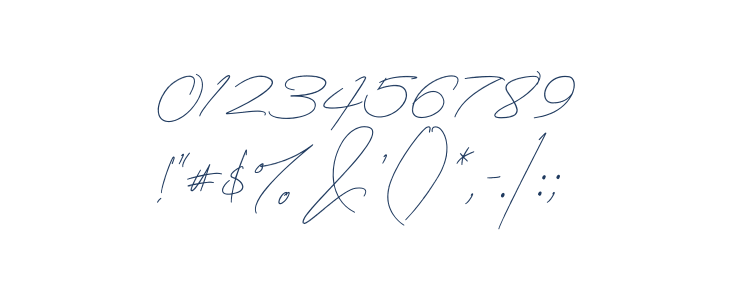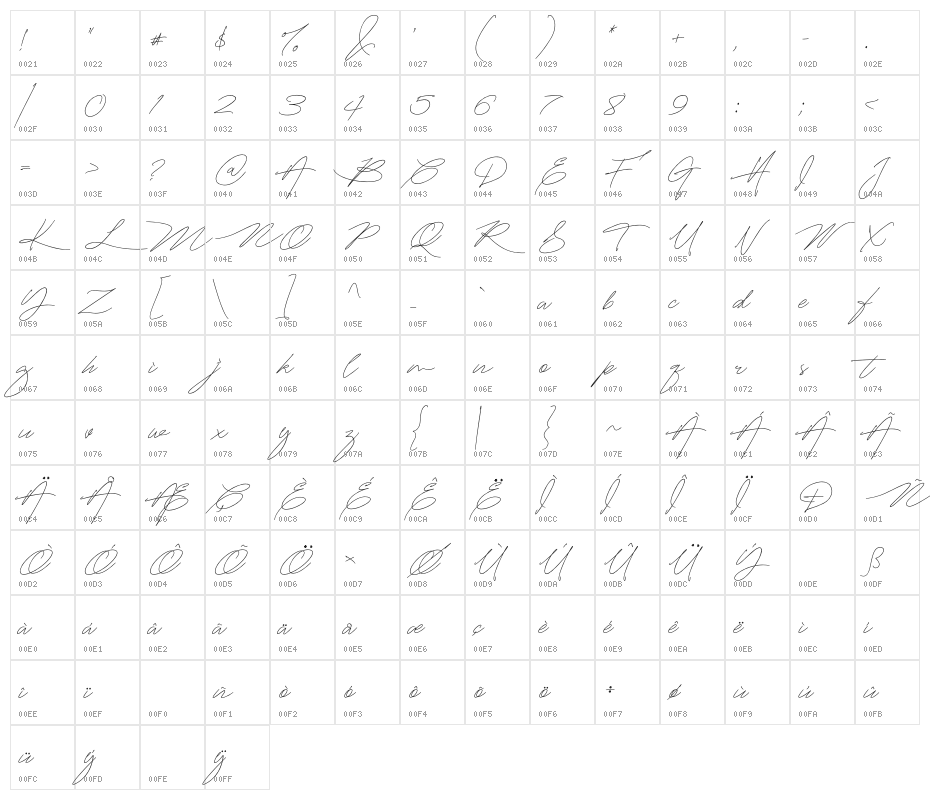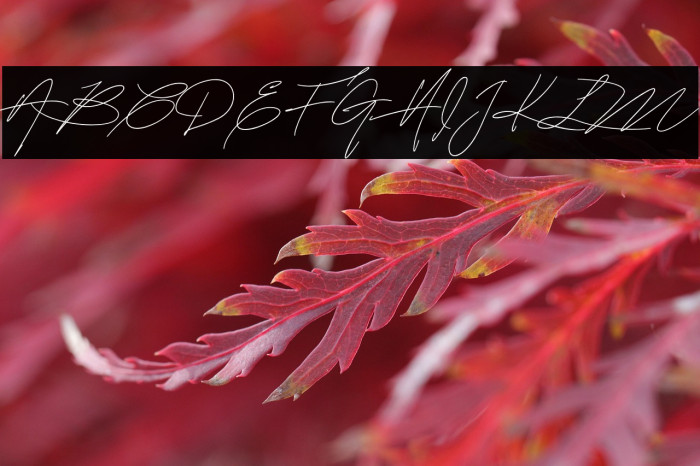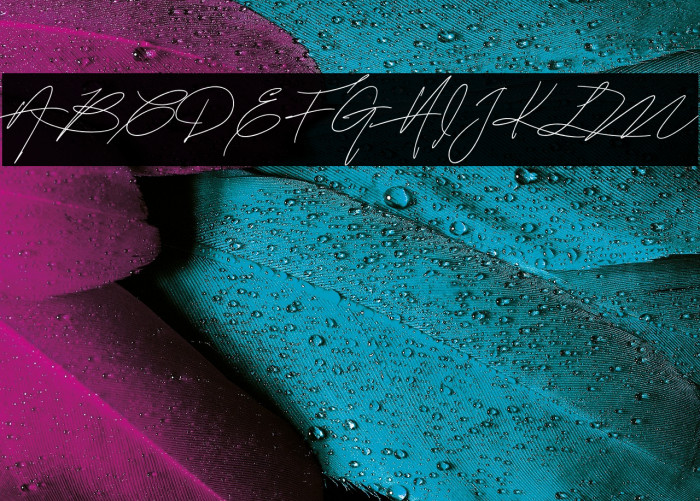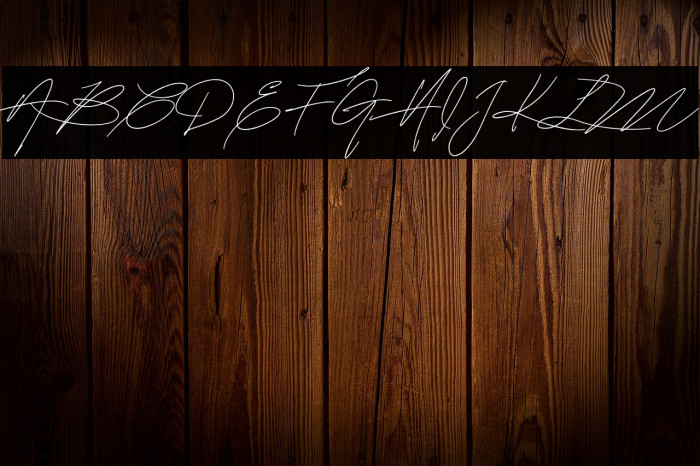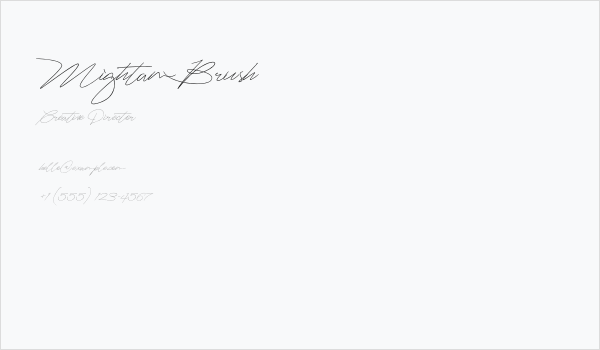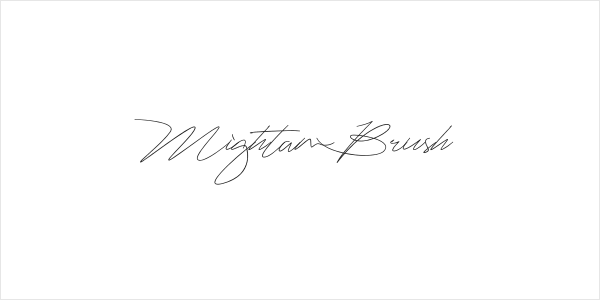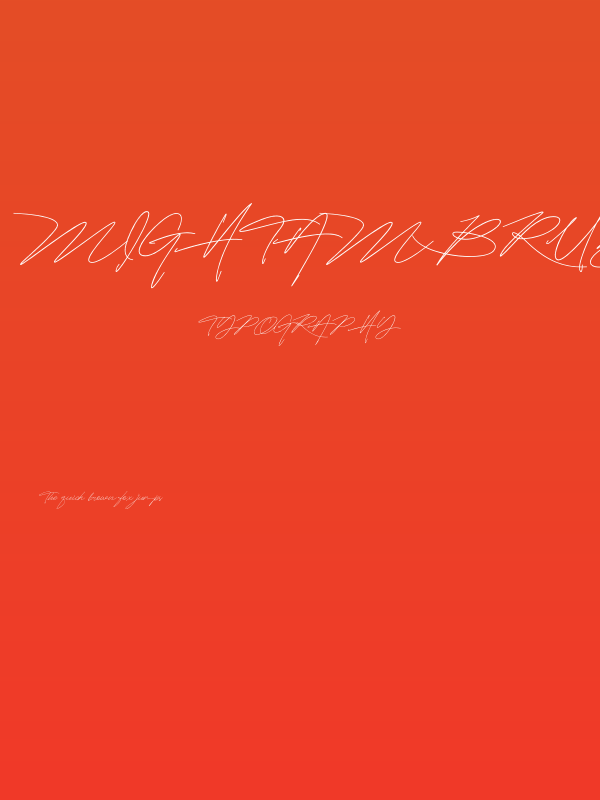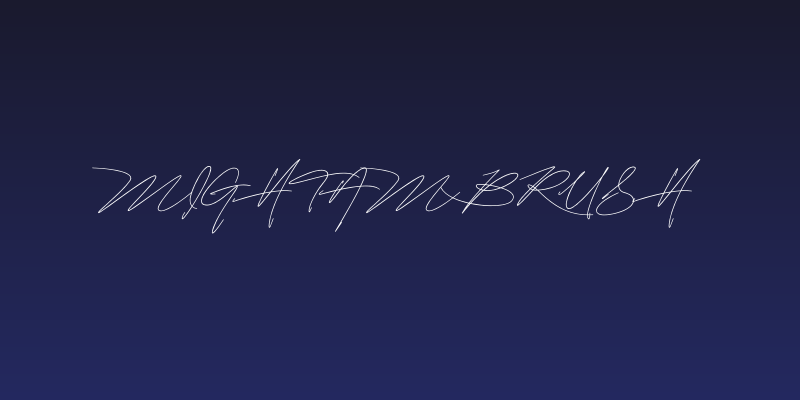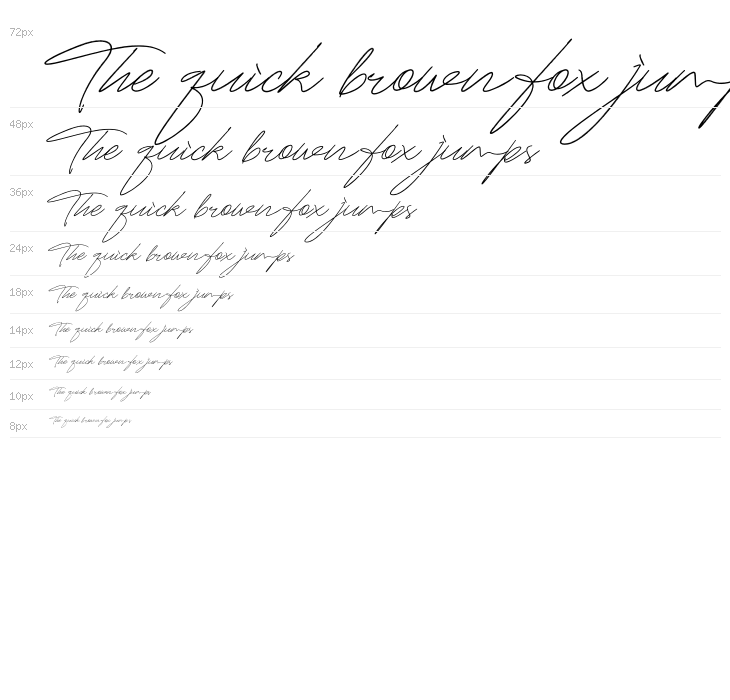
MightamBrush Font
MightamBrush Description
This font features an elegant and fluid script style, reminiscent of traditional calligraphy with a modern twist. The characters are connected with smooth, flowing strokes that give a sense of motion and grace. The uppercase letters are slightly more elaborate, with flourishes that add a touch of sophistication. The lowercase letters maintain a consistent flow, enhancing readability while retaining the artistic flair. The numerals and special characters are designed to match the overall aesthetic, ensuring a cohesive look across all text. This font is perfect for projects that require a personal, handwritten touch.
A fluid and elegant script font with a modern calligraphic style from Uncategorized fonts.
- Font: MightamBrush
- Proposed Projects: Ideal for wedding invitations, greeting cards, branding, and logo design.
- Use Case: Logos, Invitations, Decorative text